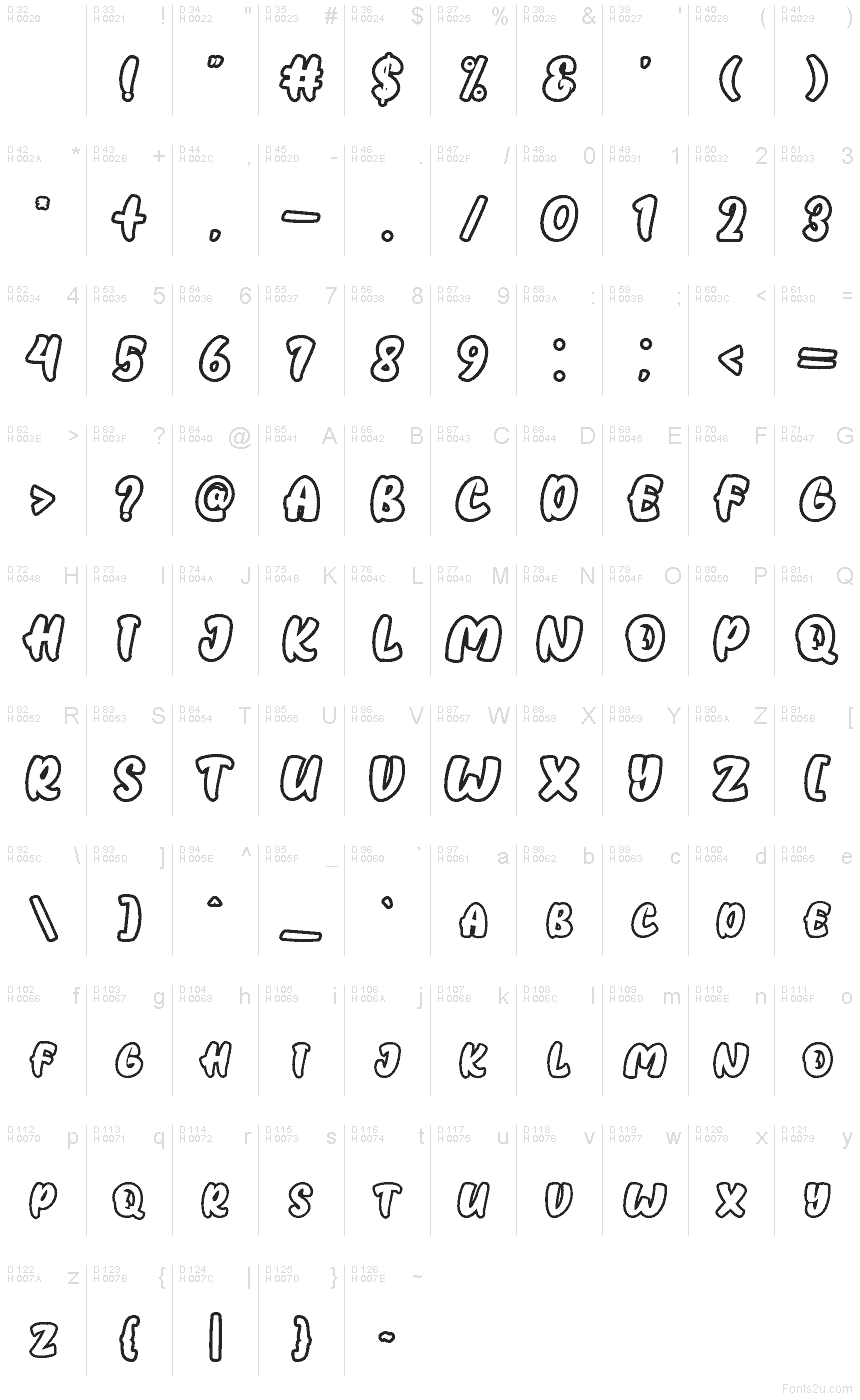
Strezy Break Outline
Strezy Break Outline font by Rvandtype is a free bold graffiti outline display font. Built around plump, air-filled contours and a thick inky edge, it delivers that bouncy, bubble-letter swagger without feeling sloppy. Part of the Strezy Break family, its open interiors invite color, texture, and motion, giving headlines a playful pop and an easy, rhythmic read.
Using Strezy Break Outline, your work shines on streetwear logos, skate or sneaker branding, festival posters, sticker packs, youth event flyers, and YouTube thumbnails. The generous outlines hold gradients, photos, or quick fills like a dream, and the spacing stays lively even at huge sizes. Pair this free font with a crisp condensed sans for captions, and add a soft drop shadow to amplify the lift.